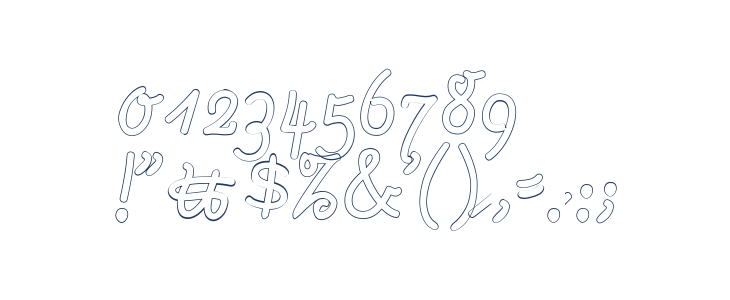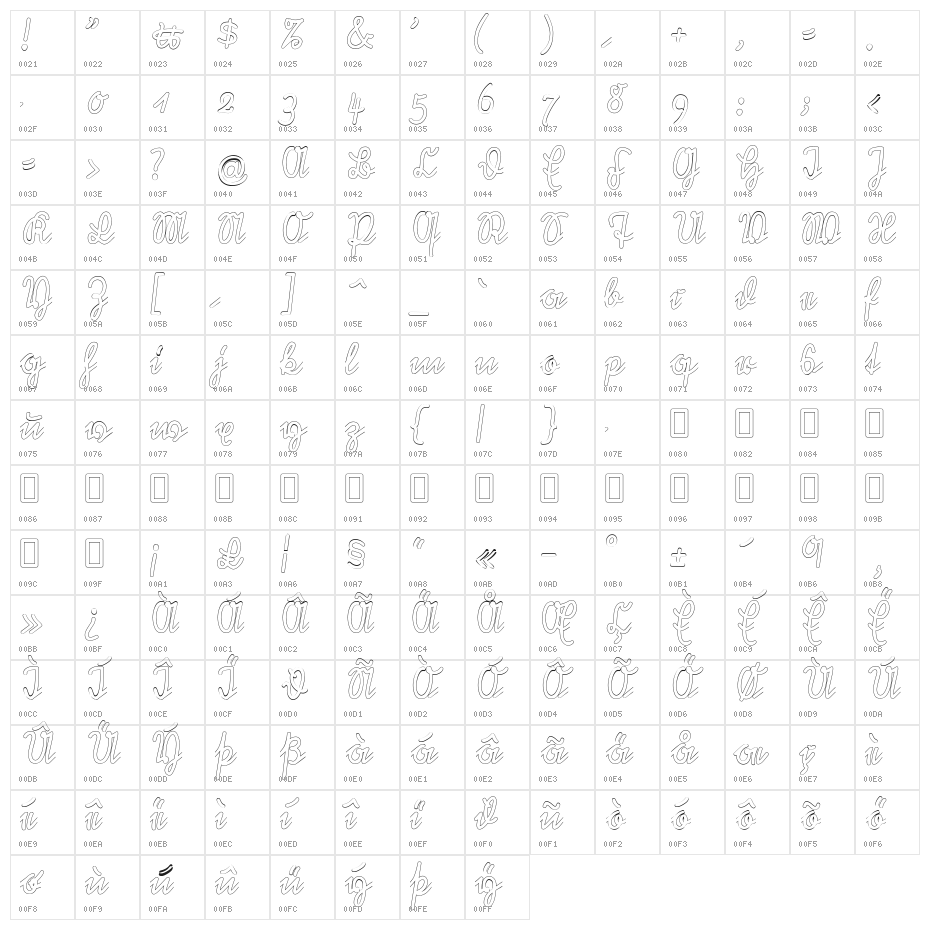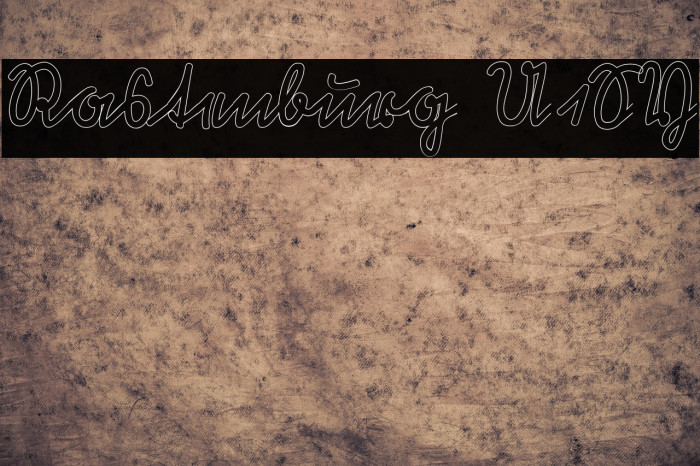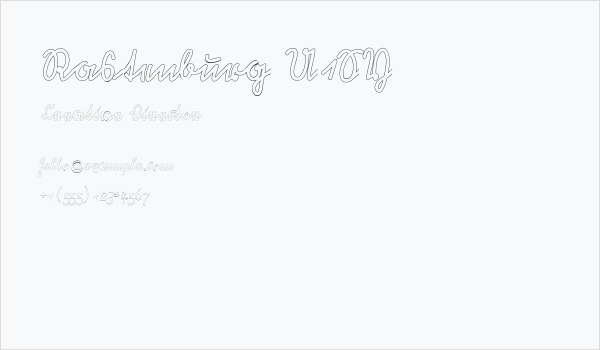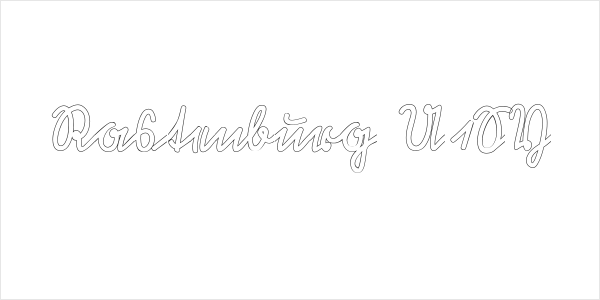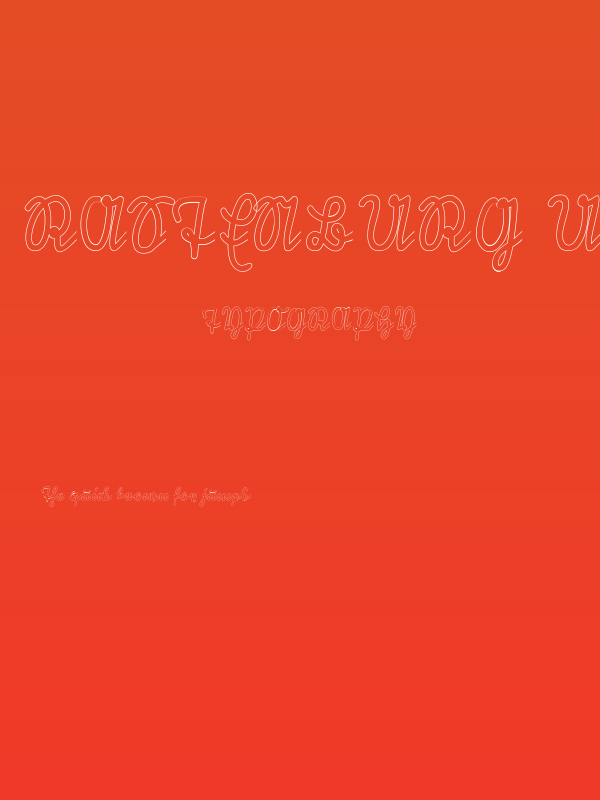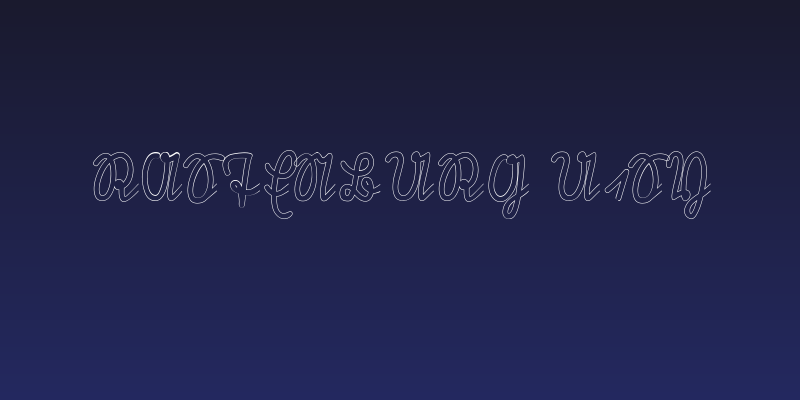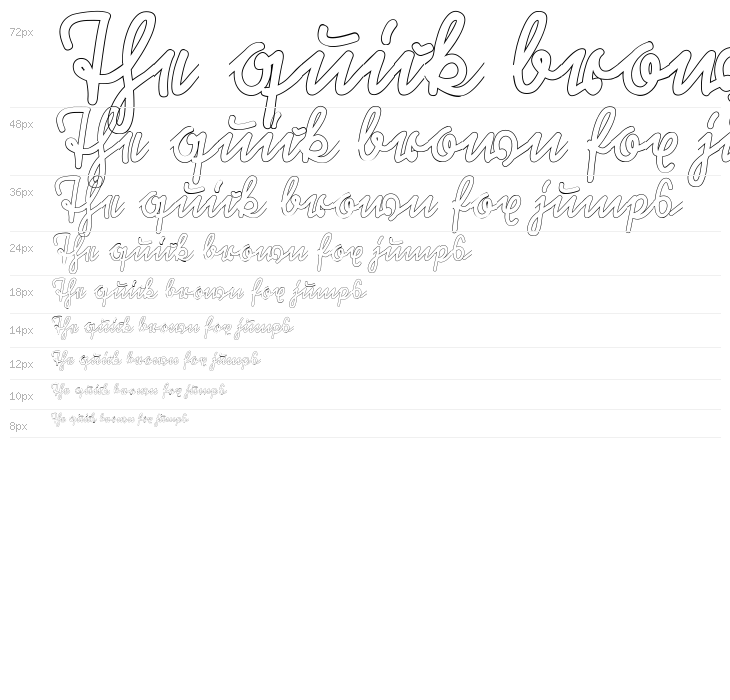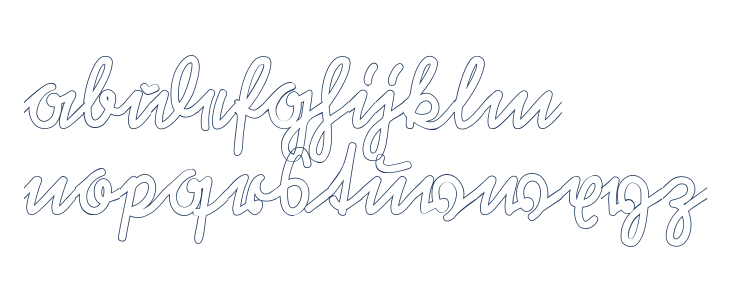
Rastenburg U1SY Font
Rastenburg U1SY Description
This font features a playful and whimsical script style with a hand-drawn appearance. The letters are interconnected, giving a fluid and continuous flow to the text. The strokes are smooth and rounded, with a slight slant that adds to its casual and informal look. The uppercase letters are slightly more ornate, with loops and curls that enhance their decorative quality. The lowercase letters maintain a consistent style, complementing the uppercase with their simplicity and elegance. Numbers and special characters follow the same design principles, ensuring a cohesive appearance across all elements.